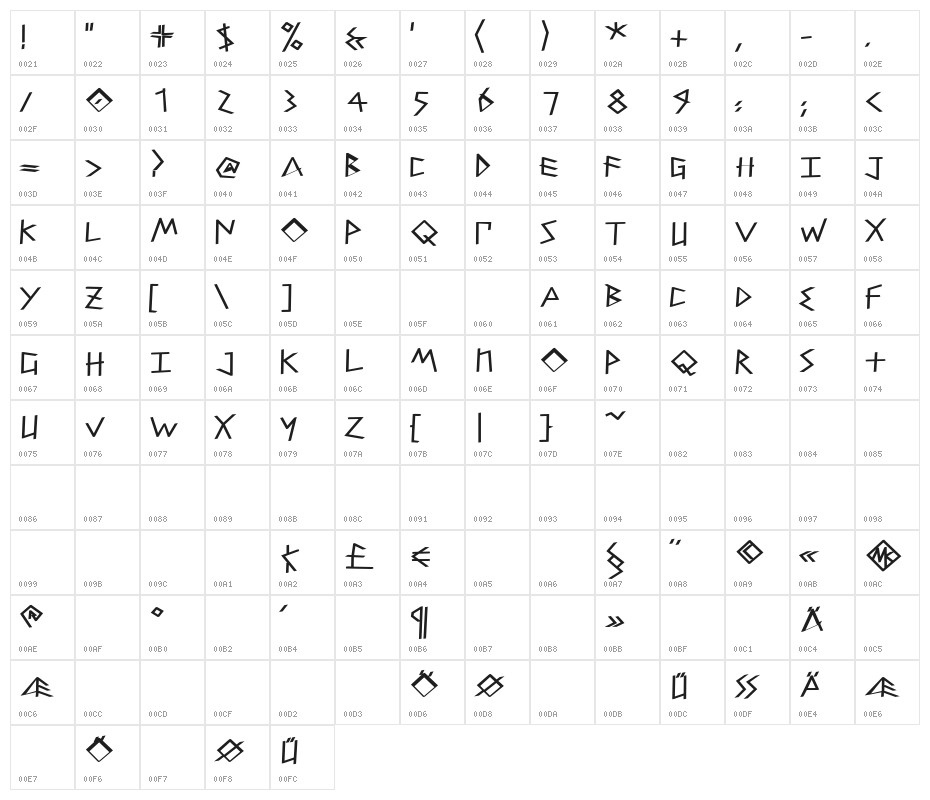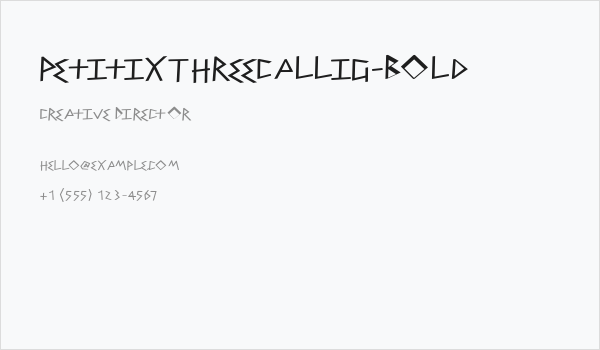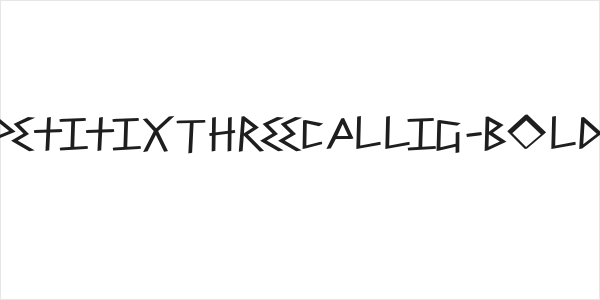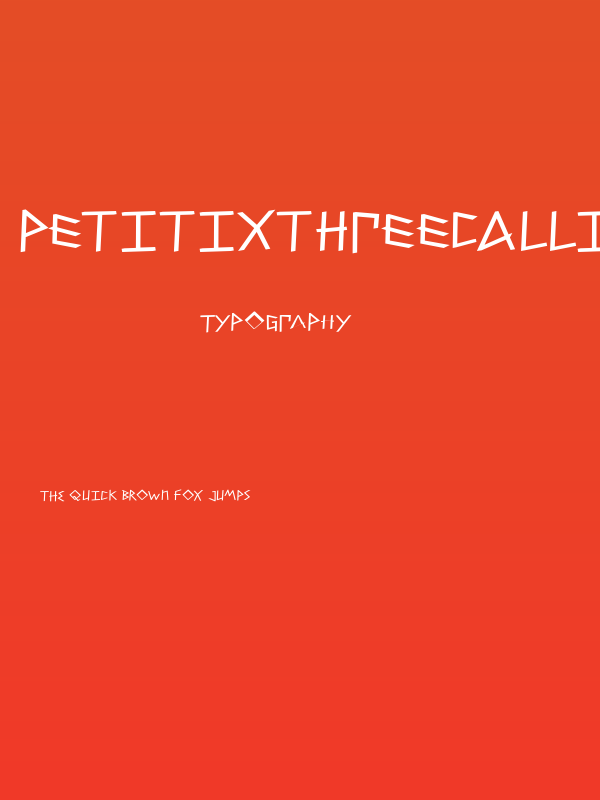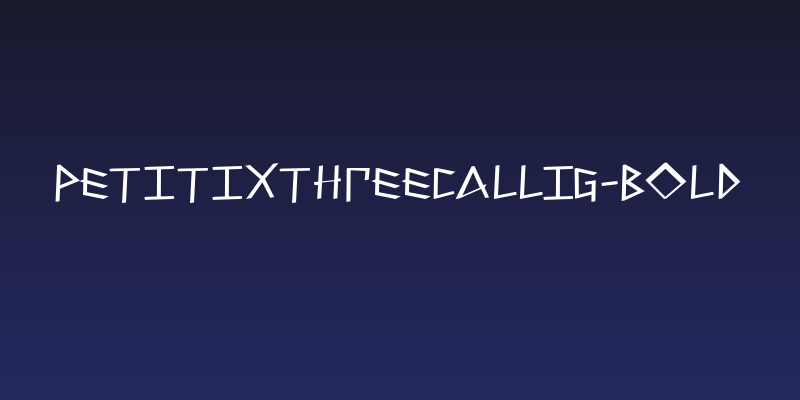
PetitixThreeCallig-Bold Font
PetitixThreeCallig-Bold Description
This font features a bold, angular design with a distinct geometric style. Each character is crafted with sharp, straight lines, giving it a modern and edgy appearance. The uppercase and lowercase letters maintain a consistent height, creating a uniform look across the text. The numbers and special characters follow the same angular theme, ensuring cohesion throughout. This font's unique style makes it stand out, ideal for projects that require a strong visual impact. The spacing between characters is tight, enhancing its bold presence.